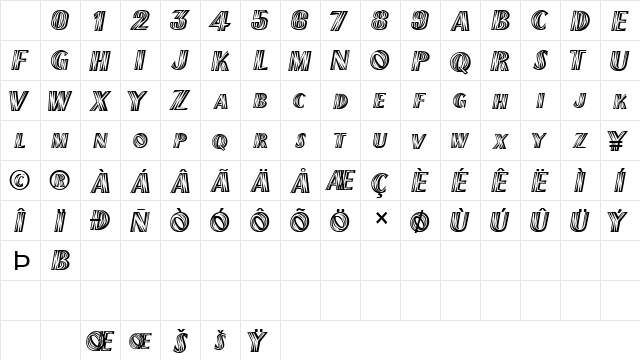
Complete FZ UNIQUE 2 Heavy glyph index. Displaying only characters natively supported by FZ UNIQUE 2 Heavy font.
FZ UNIQUE 2 is a composed and adaptable typeface that performs quietly and consistently across a wide range of design contexts.